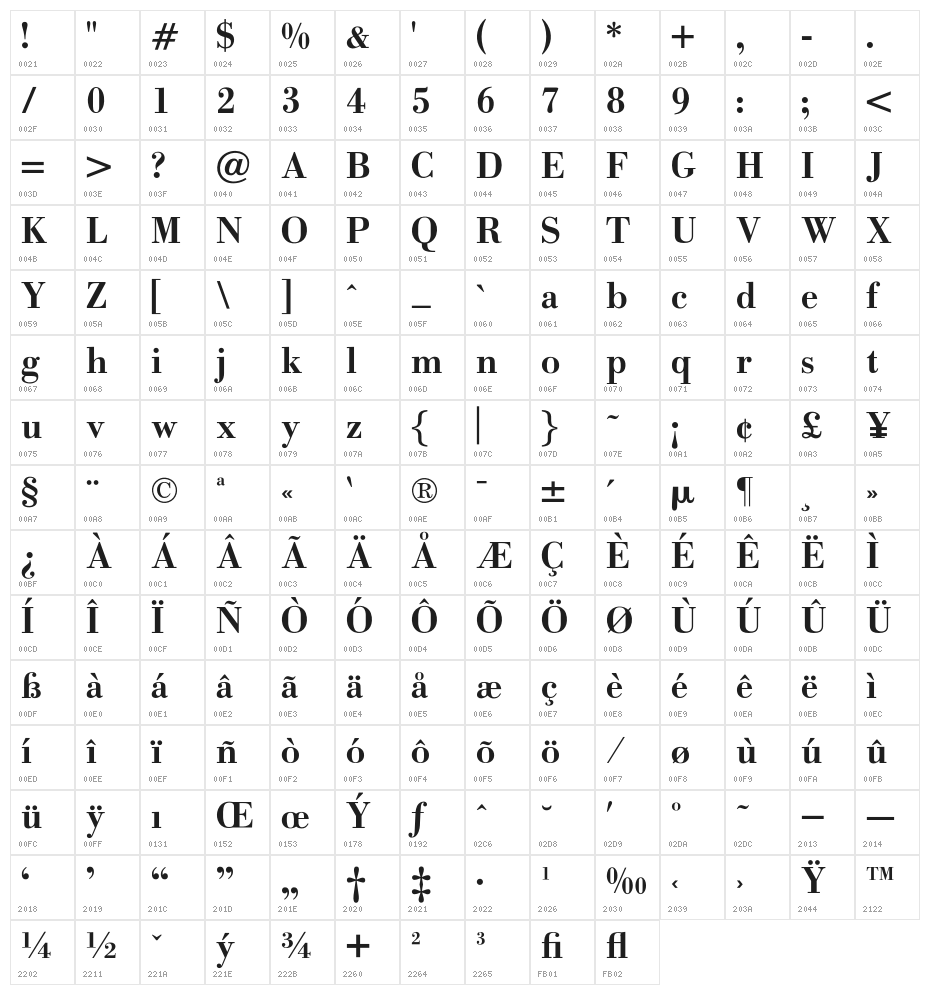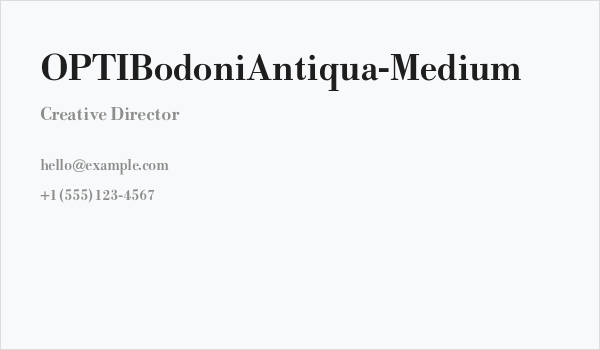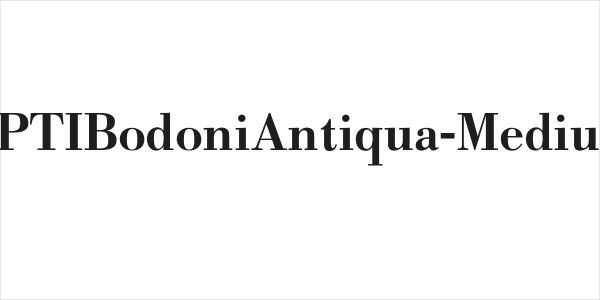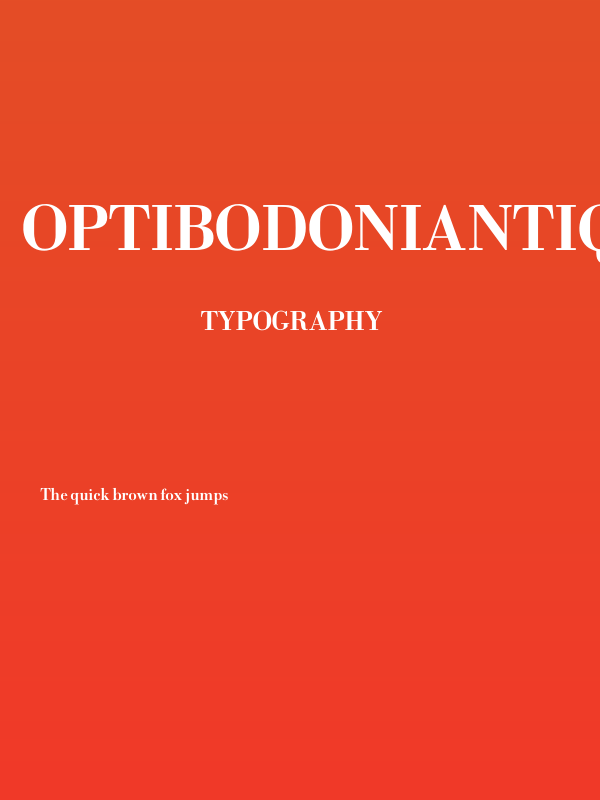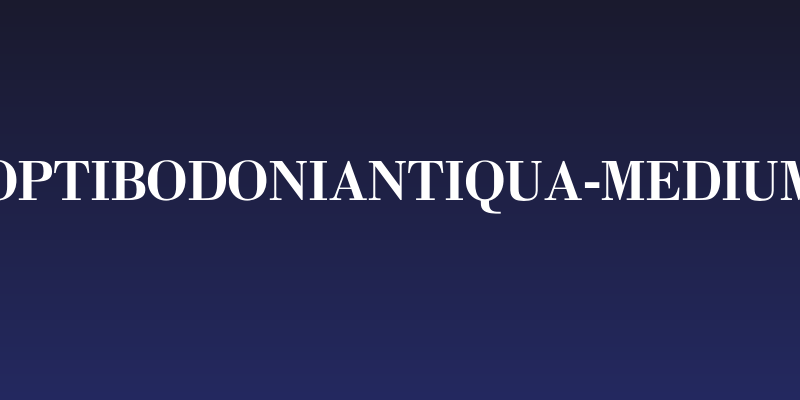
OPTIBodoniAntiqua-Medium Font
OPTIBodoniAntiqua-Medium Description
This font features a classic serif design with elegant and refined strokes. The uppercase letters are bold and commanding, while the lowercase letters maintain a balanced and harmonious appearance. The numerals are distinct and clear, making them easily readable. Special characters are well-defined, adding to the font's versatility. The overall design is sophisticated, with a high contrast between thick and thin strokes, giving it a timeless and authoritative feel.
| Proposed Projects | Ideal for editorial design, book covers, formal invitations, and branding projects that require a touch of sophistication. |